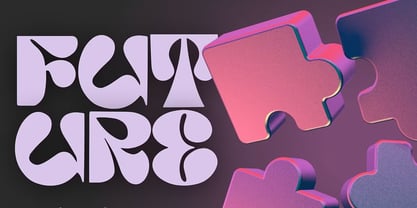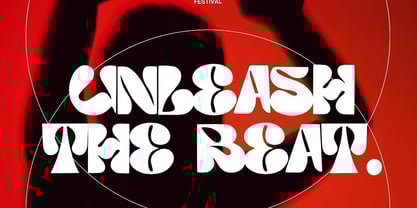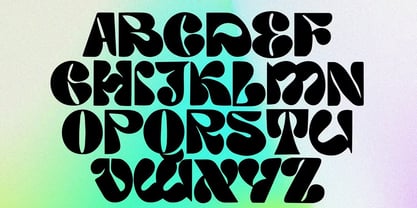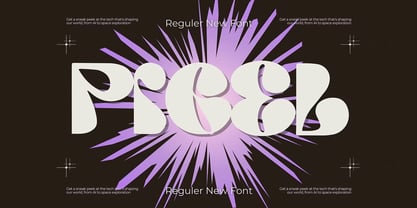
Pigel
by Maghrib Type
The Pigel Font Family was designed by Rizky Setyaludin and published by Maghrib Type. Pigel contains 1 styles.
Pigel is a modern display typeface that combines bold geometric forms with expressive retro-futuristic accents. Each character is crafted with dramatic curves and sharp cuts, resulting in a striking and artistic appearance.
Perfect for branding, posters, editorials, and any design project that demands strong visual impact and bold personality
Designers: Rizky Setyaludin
Publisher: Maghrib Type
Foundry: Maghrib Type
Design Owner: Maghrib Type